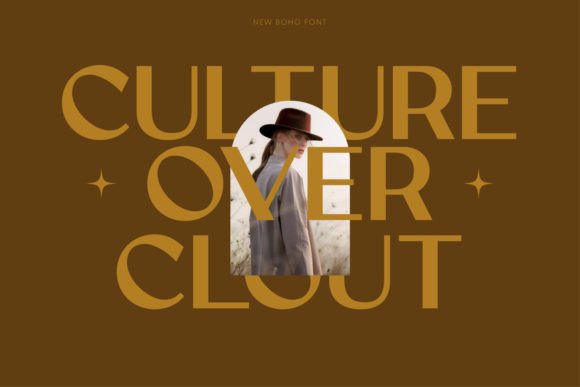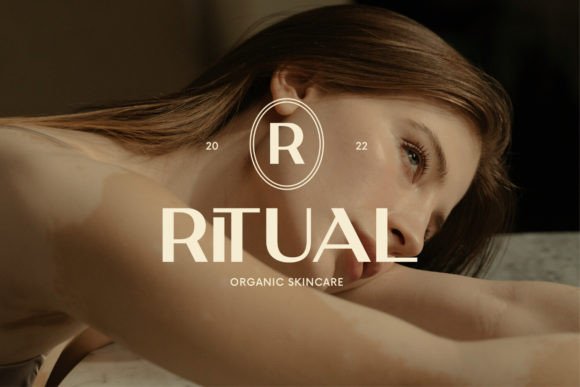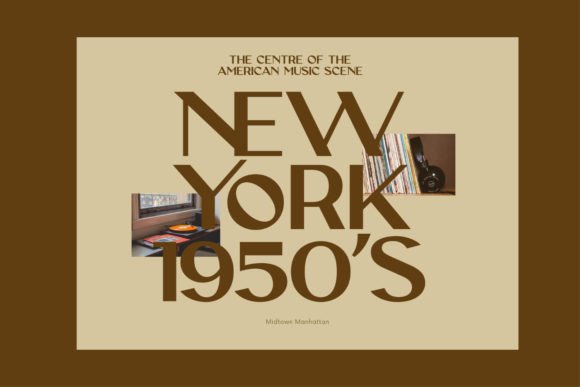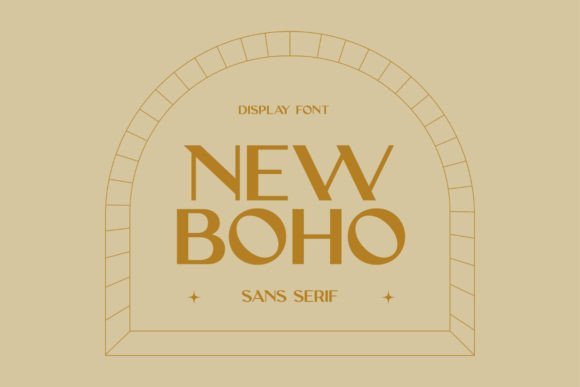
Introduction to New Boho Font
New Boho is a unique off-balance sans serif display font.
Its huge set of attractive ligatures will allow you to create really striking type designs New Boho will provide your work with a whimsical element while also being quite elegant.
Key Features of New Boho Font